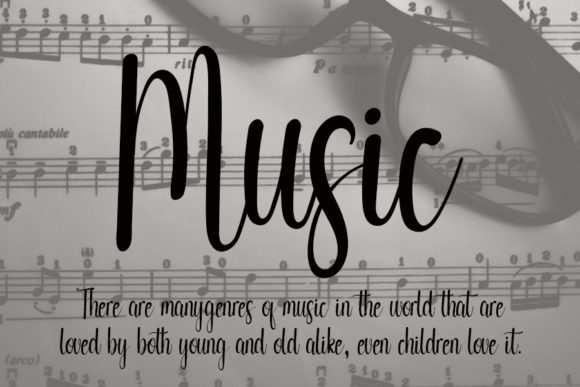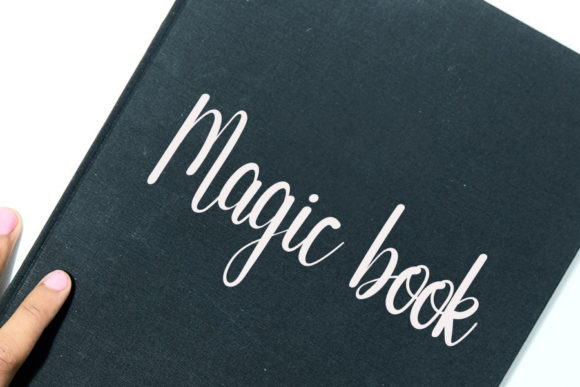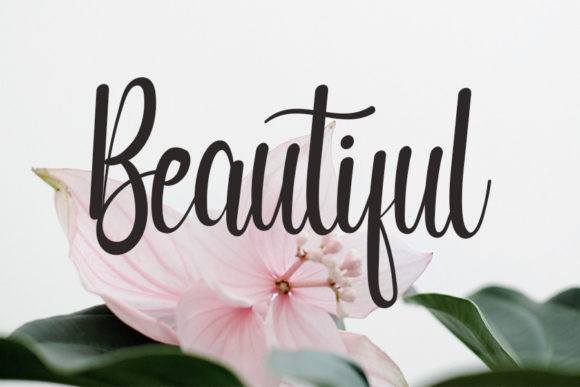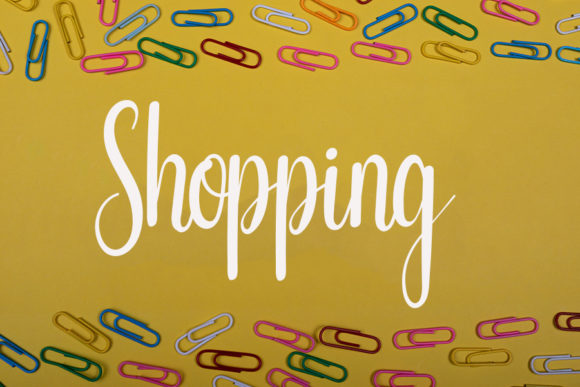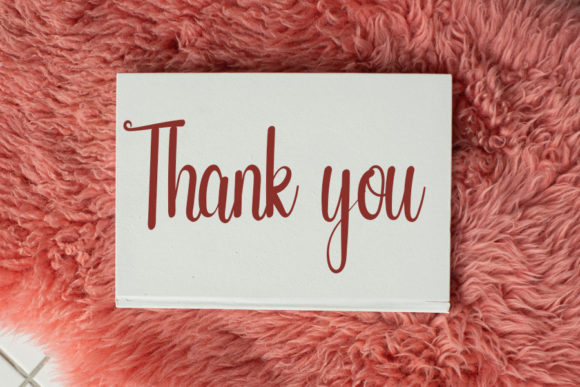
Publication Font
About Publication Font
**Publication Font: Friendly Handwritten Elegance**
Introducing *Publication Font*, a friendly handwritten typeface carefully designed to become a true favorite in your creative projects. This font maintains its classy calligraphic influences while embracing a contemporary and fresh feel. Ideal for a variety of applications, *Publication* adds a touch of elegance and friendliness to your designs.
The charm of *Publication* lies in its carefully designed handwritten style, creating a visual experience that is both friendly and elegant. The font retains classic calligraphic influences, providing a timeless quality while introducing a modern twist that keeps it fresh and relevant.
Whether you’re working on publications, invitations, branding, stationery, or various creative projects, *Publication Font* adapts seamlessly to different design needs. Its friendly handwritten elegance makes it a versatile choice for a wide range of applications.
As you incorporate *Publication* into your designs, you’ll notice how it maintains a balance between classic sophistication and contemporary appeal. The result is a font that feels both familiar and refreshing, making it a go-to option for those seeking a versatile and timeless handwritten typeface.
In summary, *Publication Font* is more than just a typeface; it’s an embodiment of friendly handwritten elegance. Let it be the choice that adds a touch of class and modern freshness to your publications, invitations, branding, stationery, and various creative projects, making each design a true favorite.